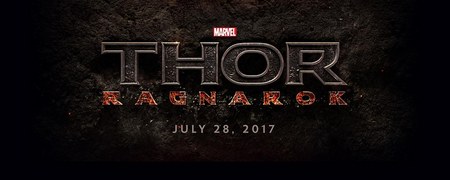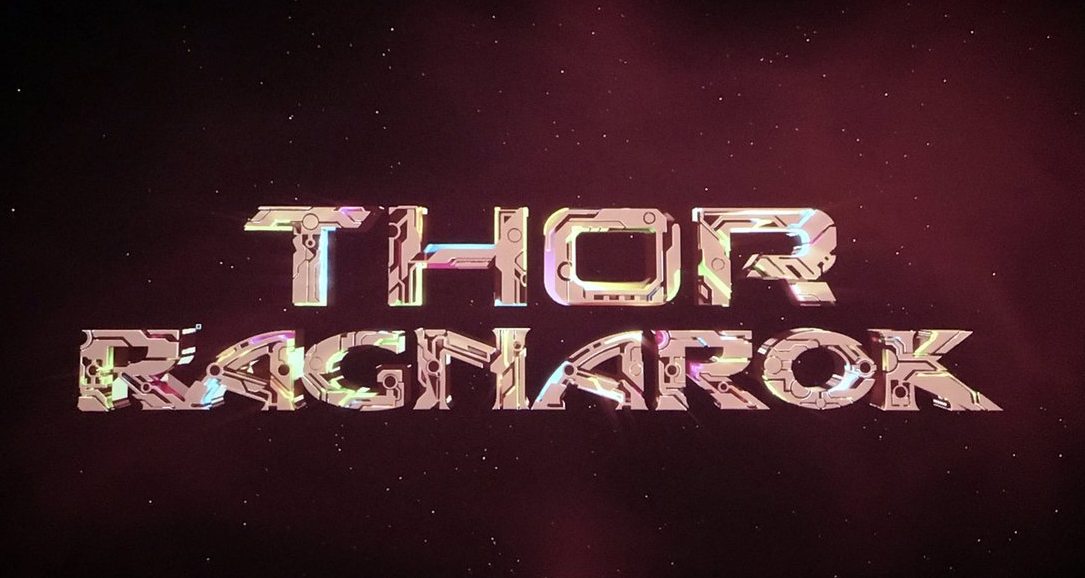
Thor Ragnarok Font Dafont
Thor ragnarok font dafont. The letter was taken from thor ragnarok movie logo. All times are cet. Dameron is a super display font family of 25 fonts with various fancy styles such as outline gradient halftone laser and etc.
Sep 24 2017 at 0146. This is not the requested font 3. Font based in the logo marvel thor.
Ragnarok is a 2017 american superhero film based on the marvel comics character thor produced by marvel studios and distributed by walt disney studios motion pictures. Esta tipografia la cree yo con base al logotipo sin color ragnarok y copie las letras mayusculas de dameron y lo puse en esta fuente. The dark world and the seventeenth film in the marvel cinematic universe mcu.
It is a free font. The font used for the thor part of the film title is dameron regular created by iconian fonts. Size modi thorson a by iconian fonts.
The thor ragnarok font contains 236 beautifully designed characters. It is the sequel to 2011s thor and 2013s thor. Can anybody point me to a similar font.
Ragnarok is a 2017 american superhero film based on the marvel comics character thor produced by marvel studios and distributed by walt disney studios motion pictures. Thor ragnarok titles font 1. Size dameron a by iconian fonts.
Thor ragnarok by fontstudio lab is a font based on the title logo from the movie thor.